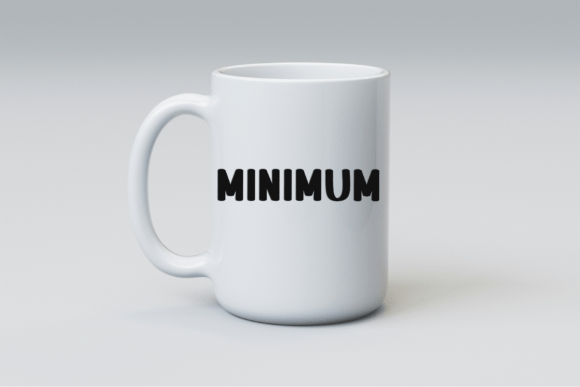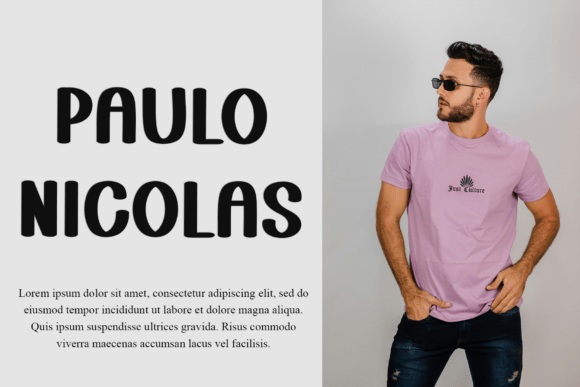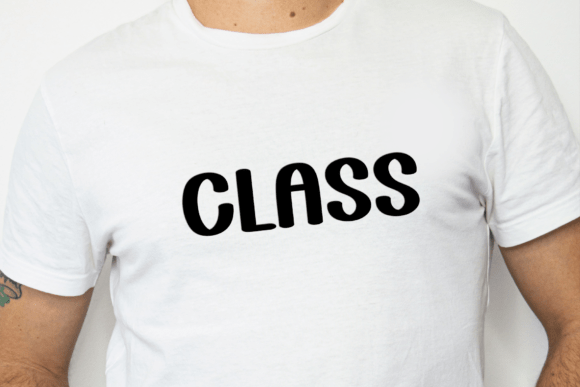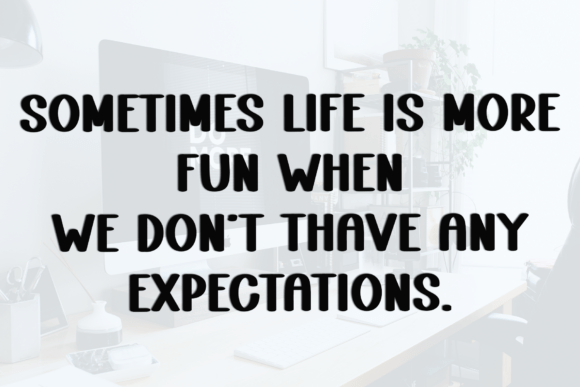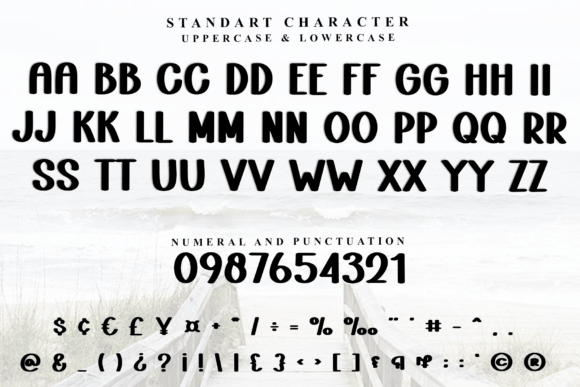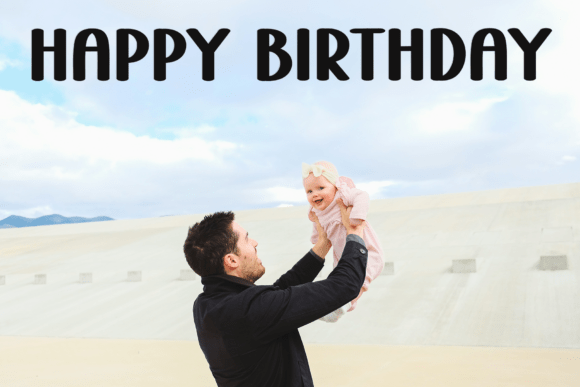
Meet the Bold Block Font, a festive and merry typeface that’s perfect for greeting cards, gift tags, and holiday-themed projects. With its decorative elements and whimsical flair, this font adds a touch of enchantment to your designs, bringing a cheerful and nostalgic ambiance to your words. As a designer, you’ll appreciate the value of having a font that’s PUA encoded, allowing you to access all of its amazing glyphs and ligatures with ease.
- Unique Characteristic: The font’s bold weight and block-like design make it ideal for creating attention-grabbing headlines and titles.
Bold Block Font Review
As a designer, I was initially drawn to the Bold Block Font due to its striking and modern aesthetic. ✨ Its clean lines and geometric shapes give it a unique and edgy feel that’s perfect for contemporary designs. The font is highly customizable, allowing you to adjust the weight, spacing, and color to suit your project’s needs.
One of the standout features of Bold Block Font is its versatility. ✨ It’s suitable for both digital and print materials, making it a great choice for designers working on a variety of projects. The font is also highly legible, even at smaller font sizes, which is essential for ensuring that your message is conveyed effectively to your audience.
- ⚠️ Limited character set: The font only includes a basic set of characters, which may not be sufficient for more complex designs.
- ⚠️ Limited font sizes: The font is not optimized for extremely large or small font sizes, which may affect its legibility in certain situations.
Overall, the Bold Block Font is a solid choice for designers looking for a modern and customizable font. While it has some limitations, its unique aesthetic and versatility make it a great addition to any design project.